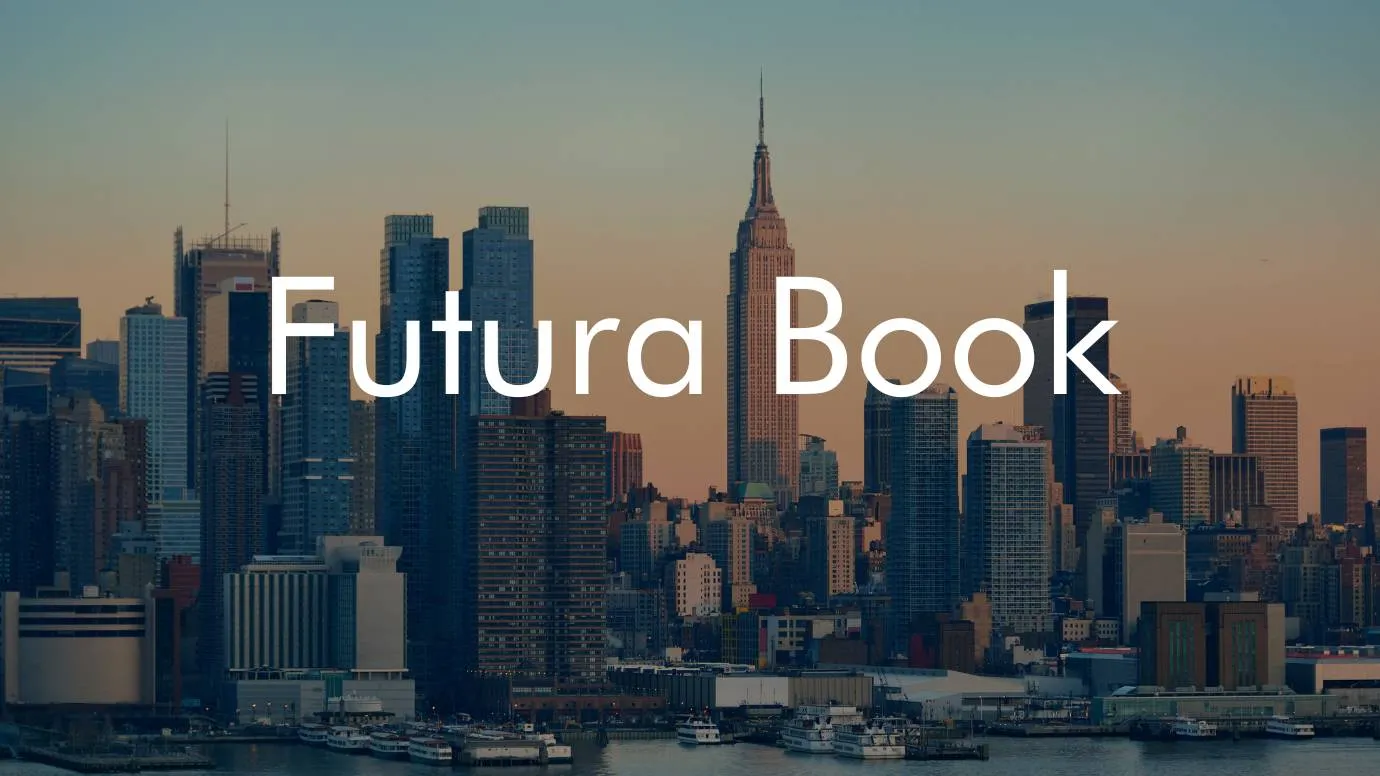
Futura Book is a most unique and classic font named Futura Book Font. This font family belongs to the Sans-Serif typeface. It was designed by a very famous designer Erik Spiekermann.
This typeface is more suitable for the uniqueness of your graphic designs projects. By using this font family many designers will be done their graphic designing successfully. Its features are too advanced and usually best for all designing purposes.